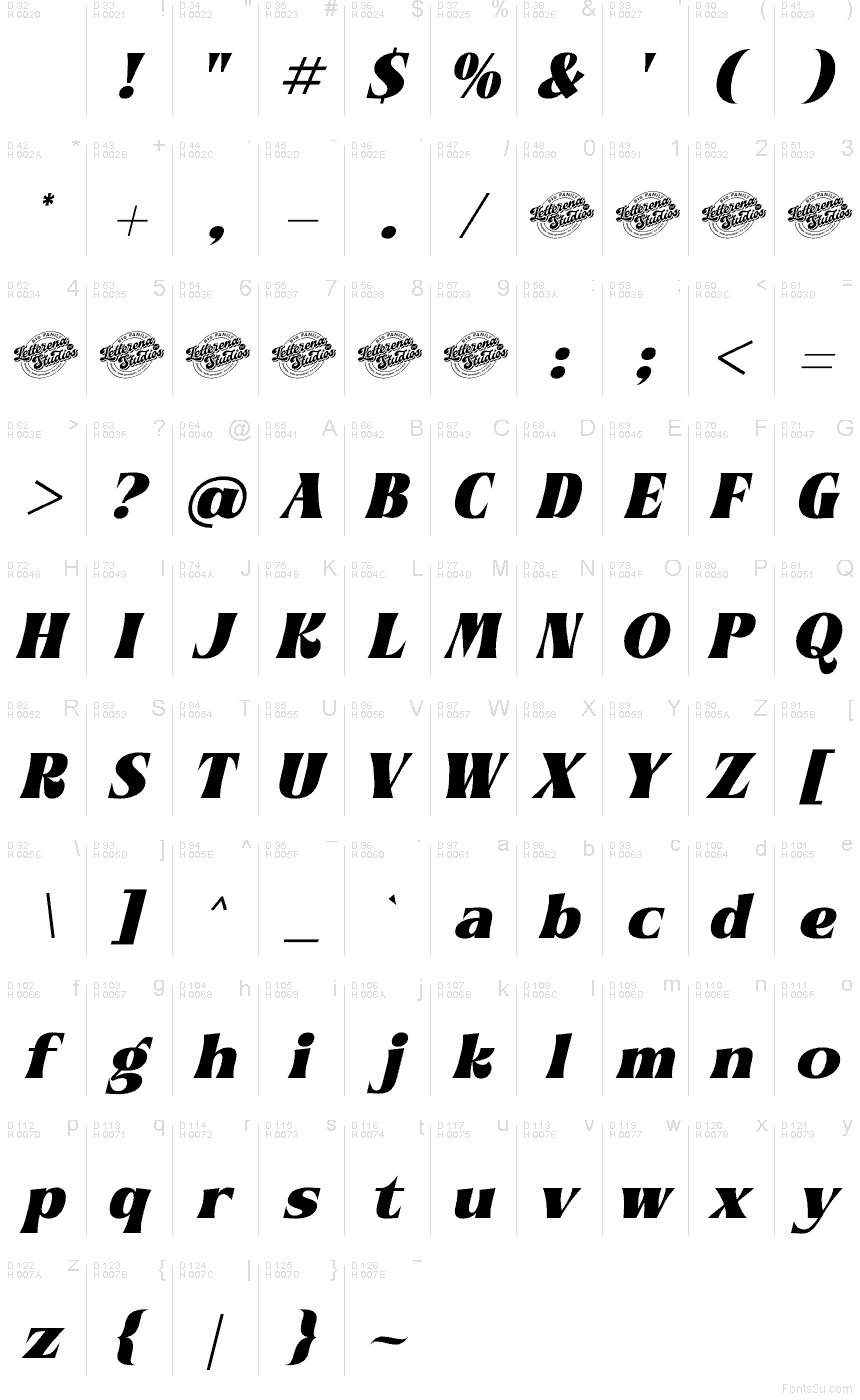
Andera Ninefold DEMO VERSION Italic
Andera Ninefold Italic font by Letterena Studios is a free italic serif font with a dramatic forward lean and thick, inky strokes that feel almost brush-like. The tight spacing and strong diagonals create a sense of momentum, as if every word is mid-stride. Part of the Andera Ninefold family, this italic style turns even short titles into bold statements, with a slick, fashion-editorial edge that’s hard to ignore.
Using Andera Ninefold Italic, headlines feel energetic and luxurious on magazine covers, branding, packaging, posters, and social media graphics, and it also shines on album art and bold website hero text. This free font works beautifully when set large, while supporting copy can sit in a simple sans serif for contrast. Keep the color palette minimal—black, cream, deep jewel tones—to let its strong, slanted forms do the talking.